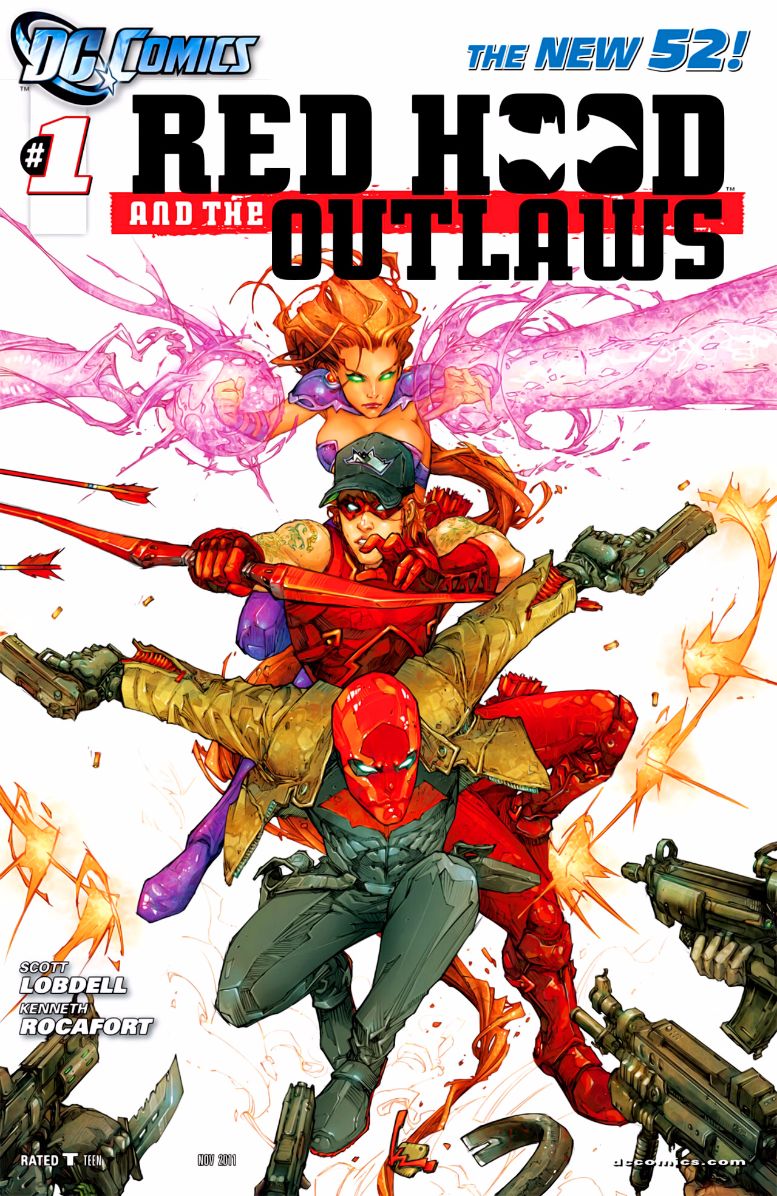
Red Hood and the Outlaws Font
BookRed Hood and the Outlaws is a DC Comics series featuring the characters of Red Hood (formerly known as Jason Todd, the second Robin), Artemis, and Bizarro. The series follows the trio as they work together to fight crime and protect the people of Gotham City.
Red Hood and the Outlaws #1's cover, which is shown above, has the logo on it in a thick slab serif type. The font is probably City Bold by Georg Trump. Burlingame Black Italic by Carl Crossgrove, a robust sans serif, is most likely used for the text "The New 52!"